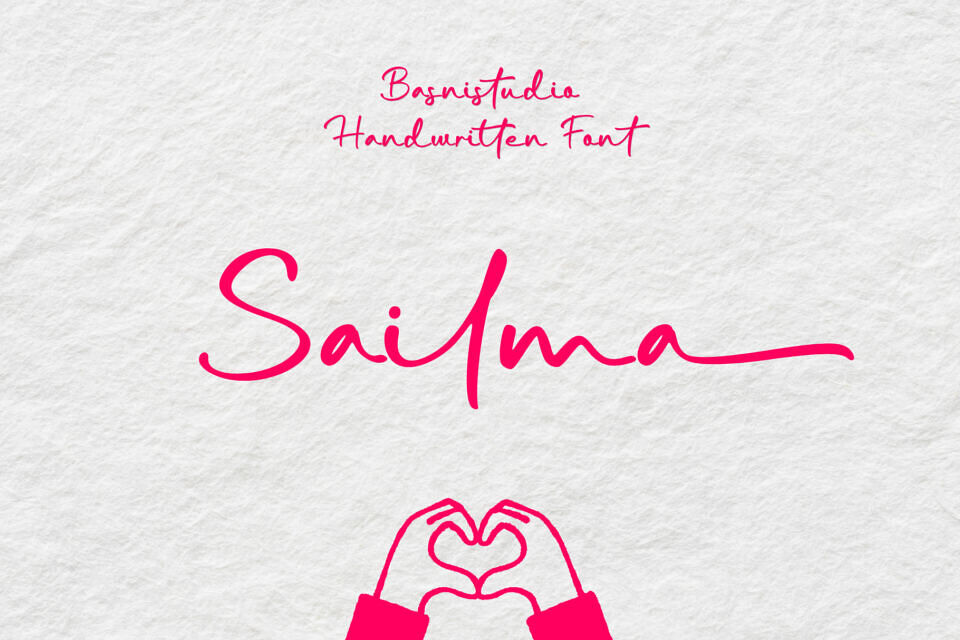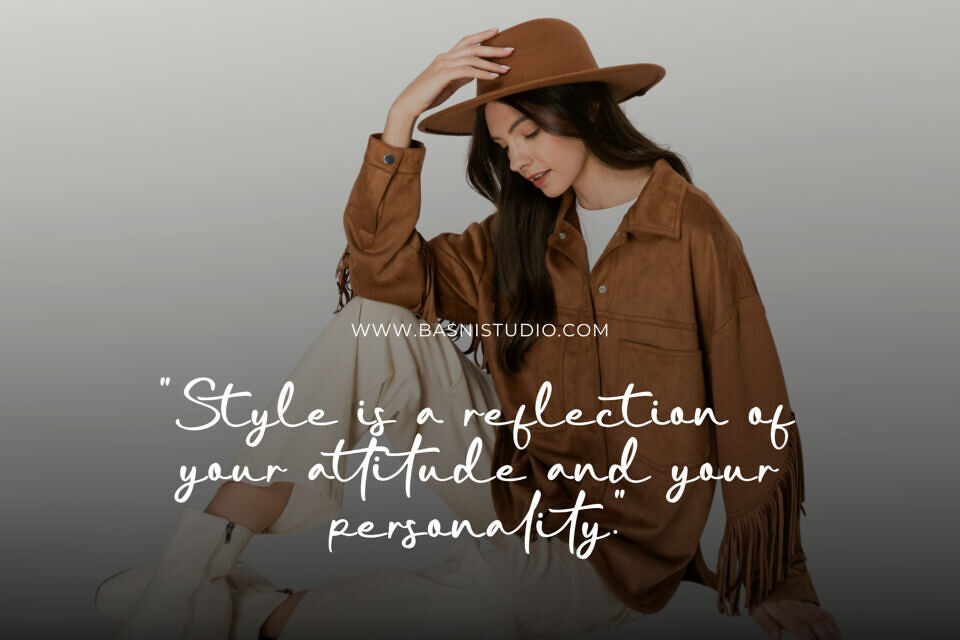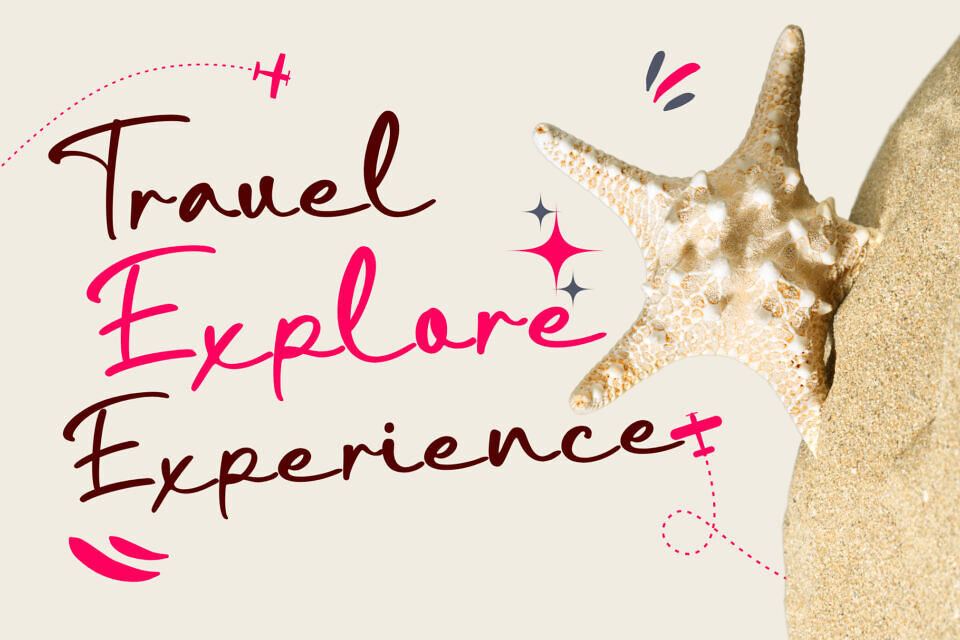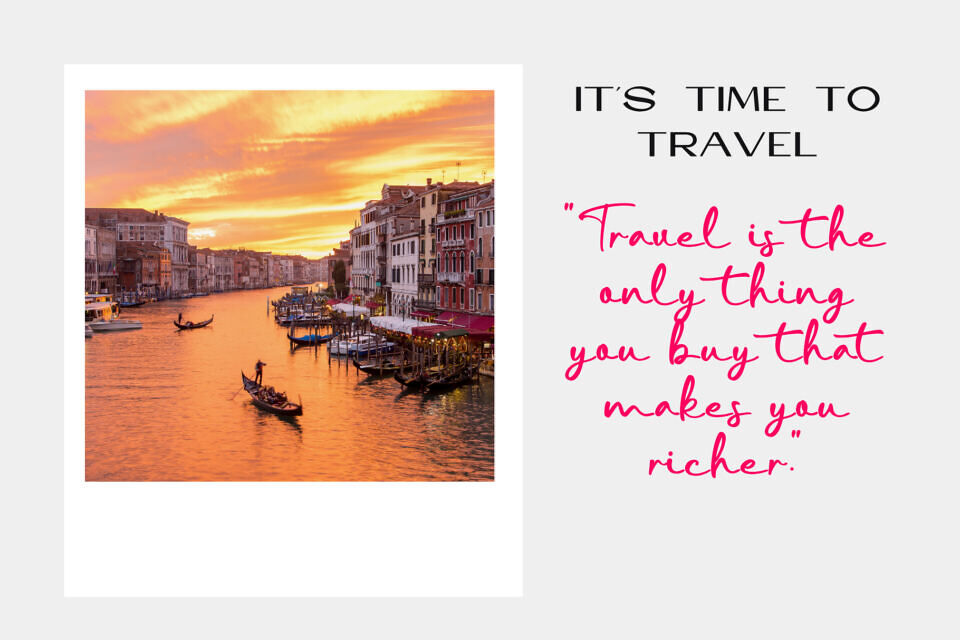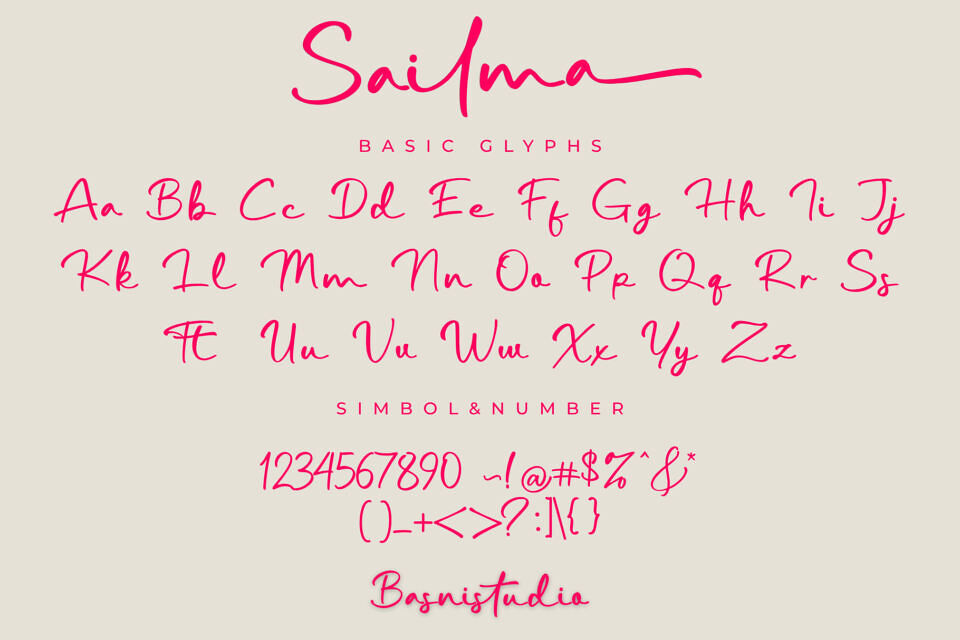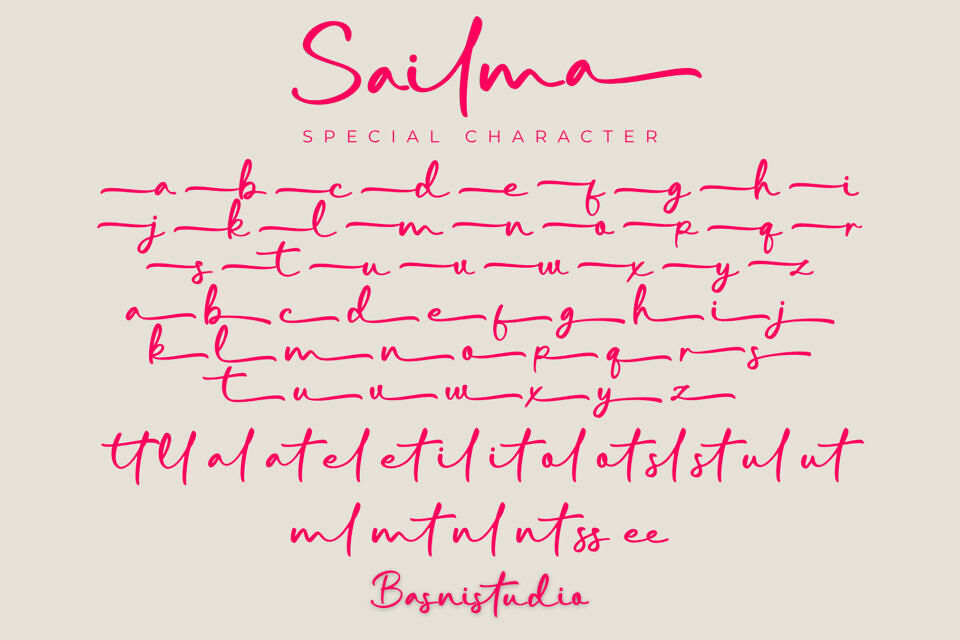
Add a touch of elegance to your design with Sailma, a stunning handwritten font. Its unique features, including upright script and flowing loops, make it perfect for luxury branding, wedding stationery, and high-end packaging. Sailma’s friendly and airy feel also suits organic labels, gift tags, and social media quotes, evoking a sense of cozy conversation and sophistication.